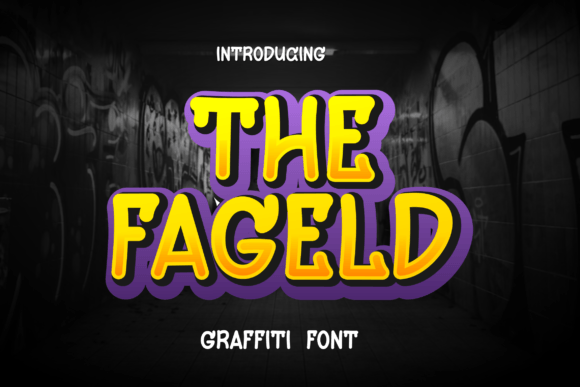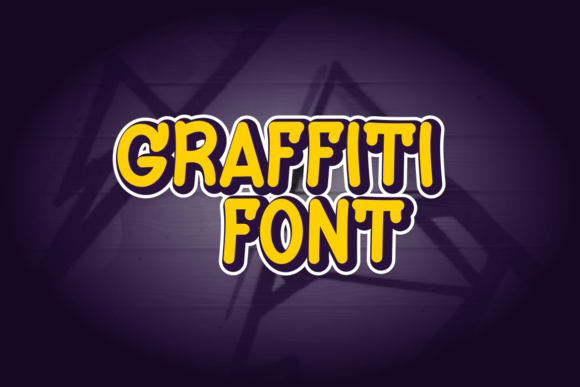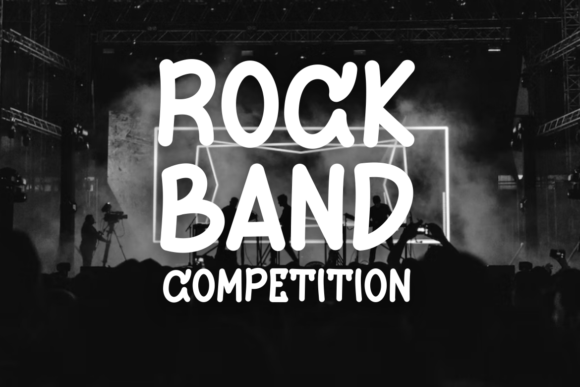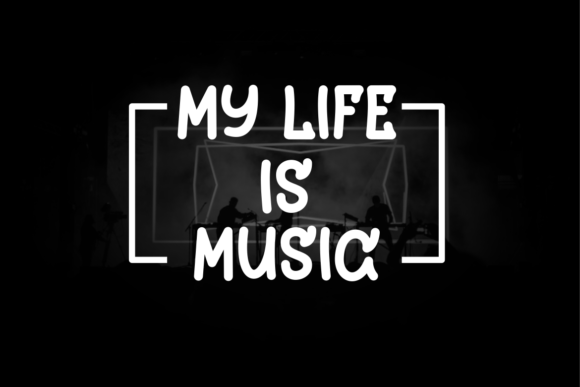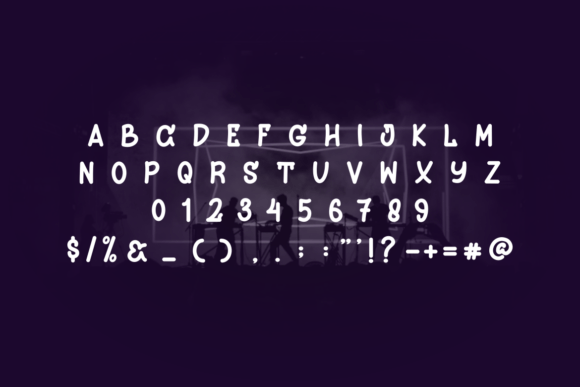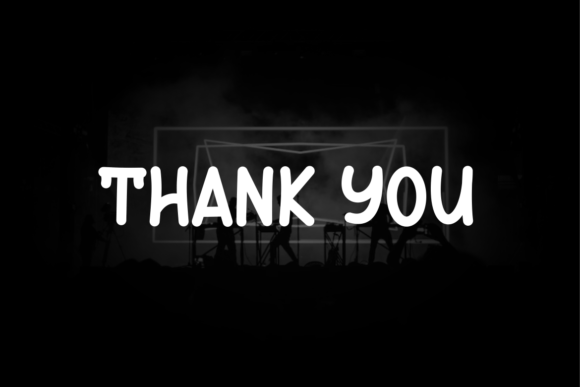
THE FAGELD FONT SPECIMEN
The Fageld is a bold and authentic slab serif font suitable for any branding project like logo, t-shirt printing, esports, and many more. It will look outstanding in a wide range of contexts.